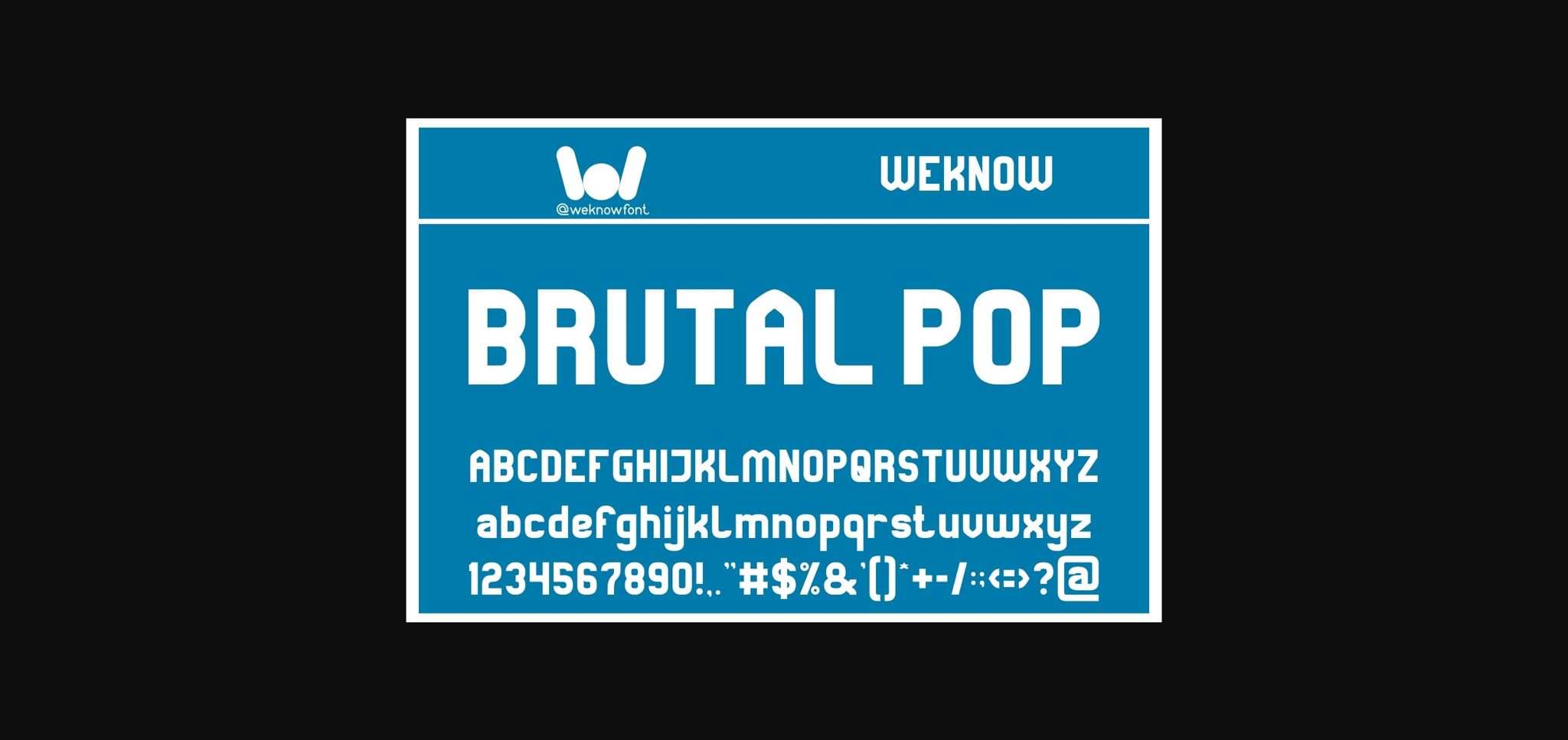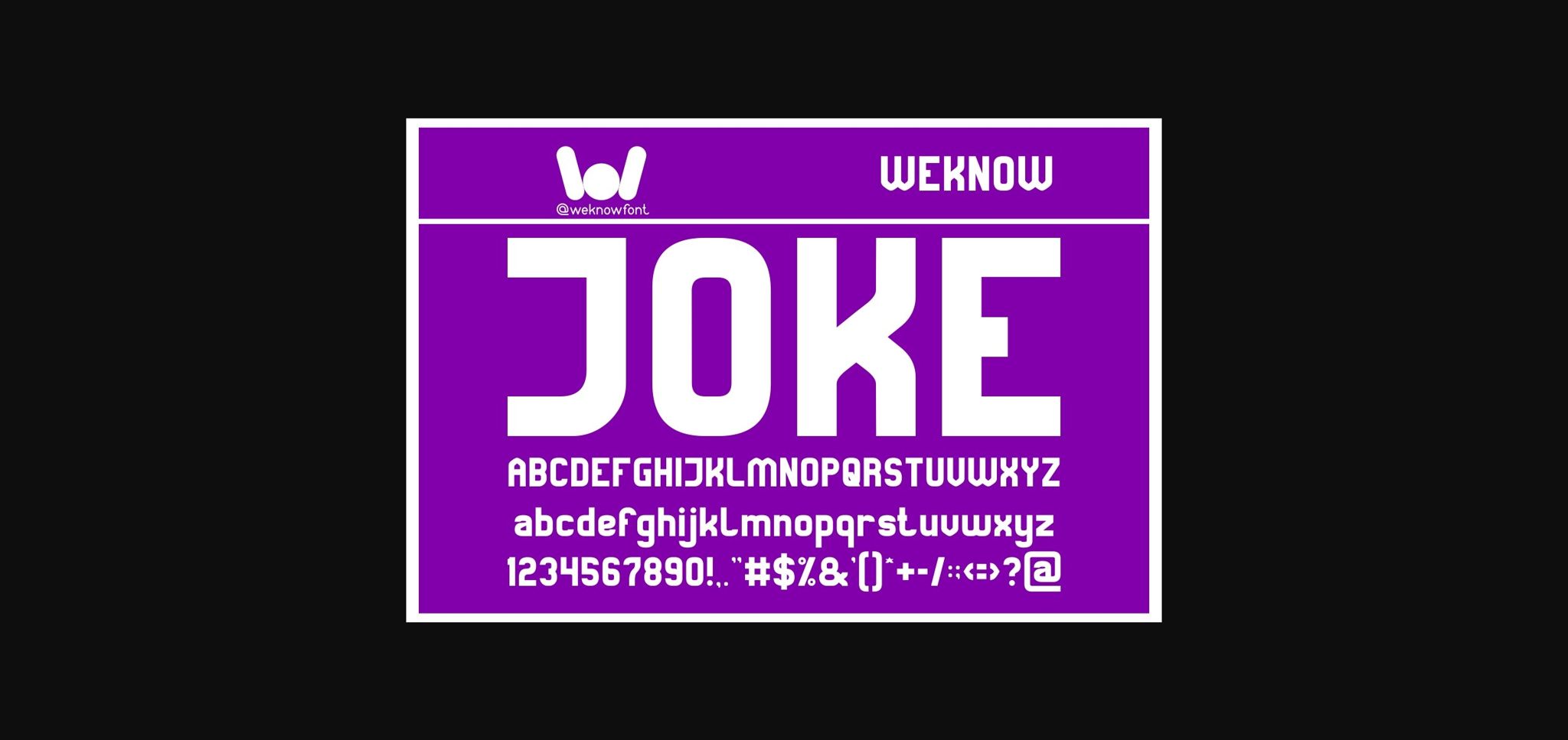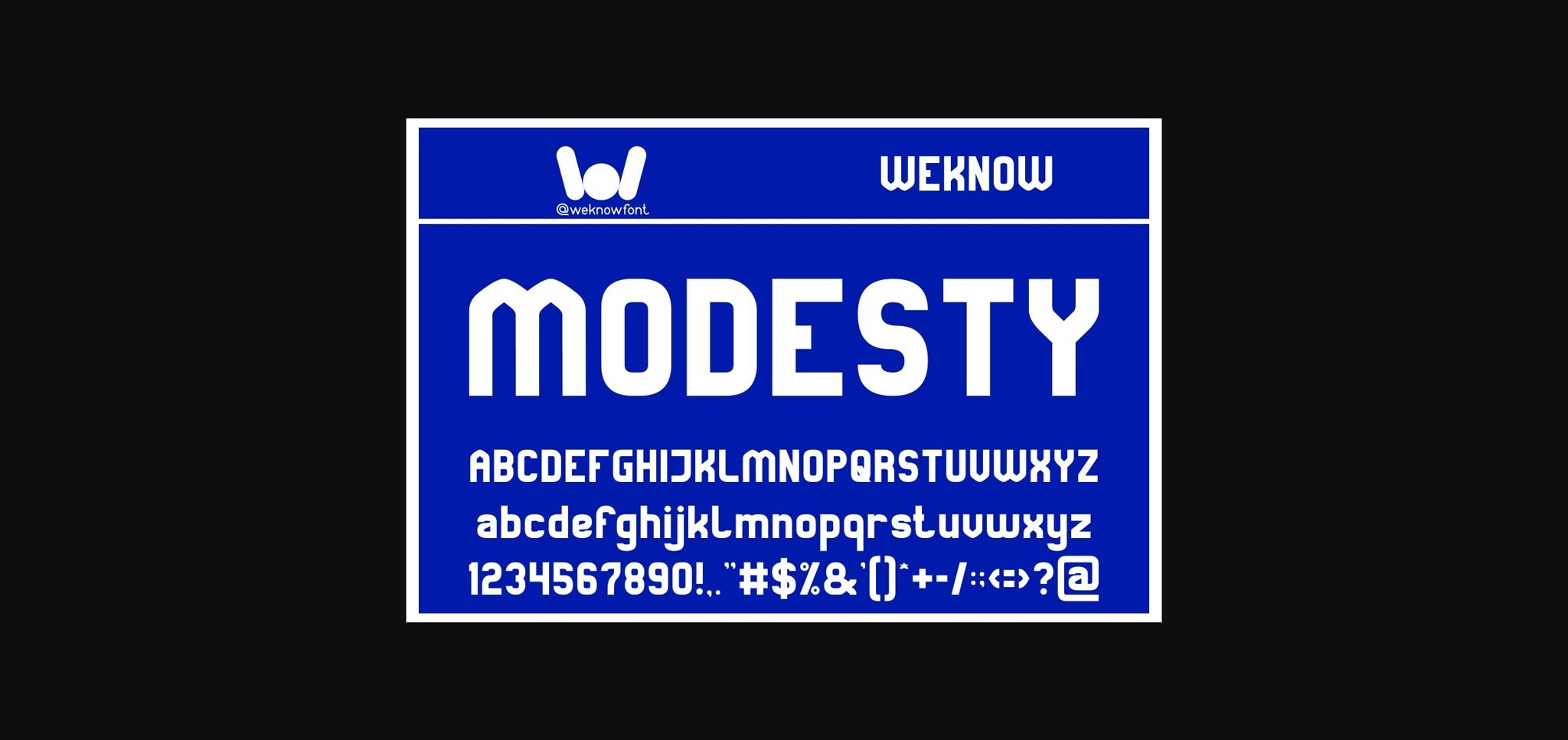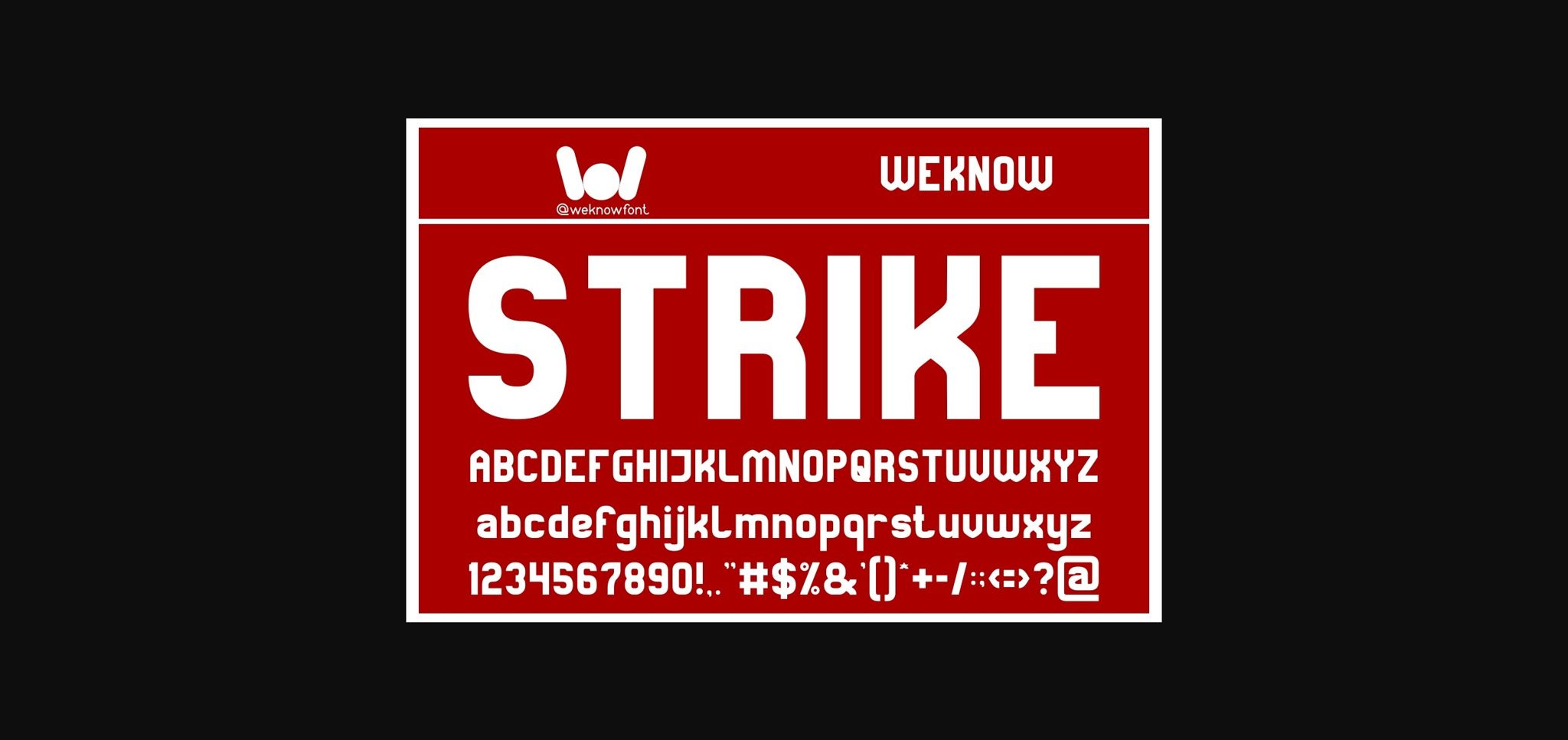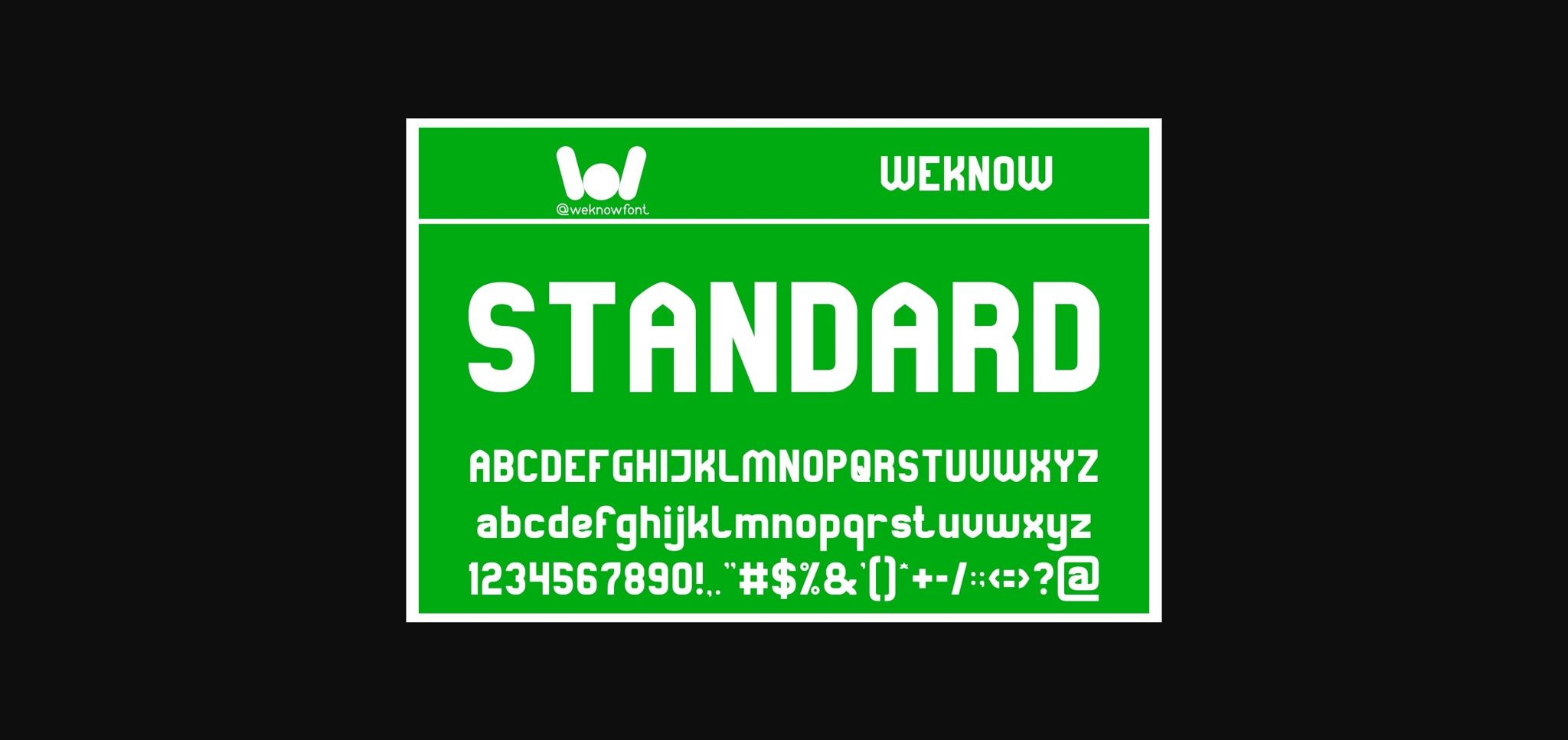
Joke Font
About Joke Font
Joke is a cool and unique sans serif font. Masterfully designed to become a true favorite, this font has the potential to bring each of your creative ideas to the highest level!